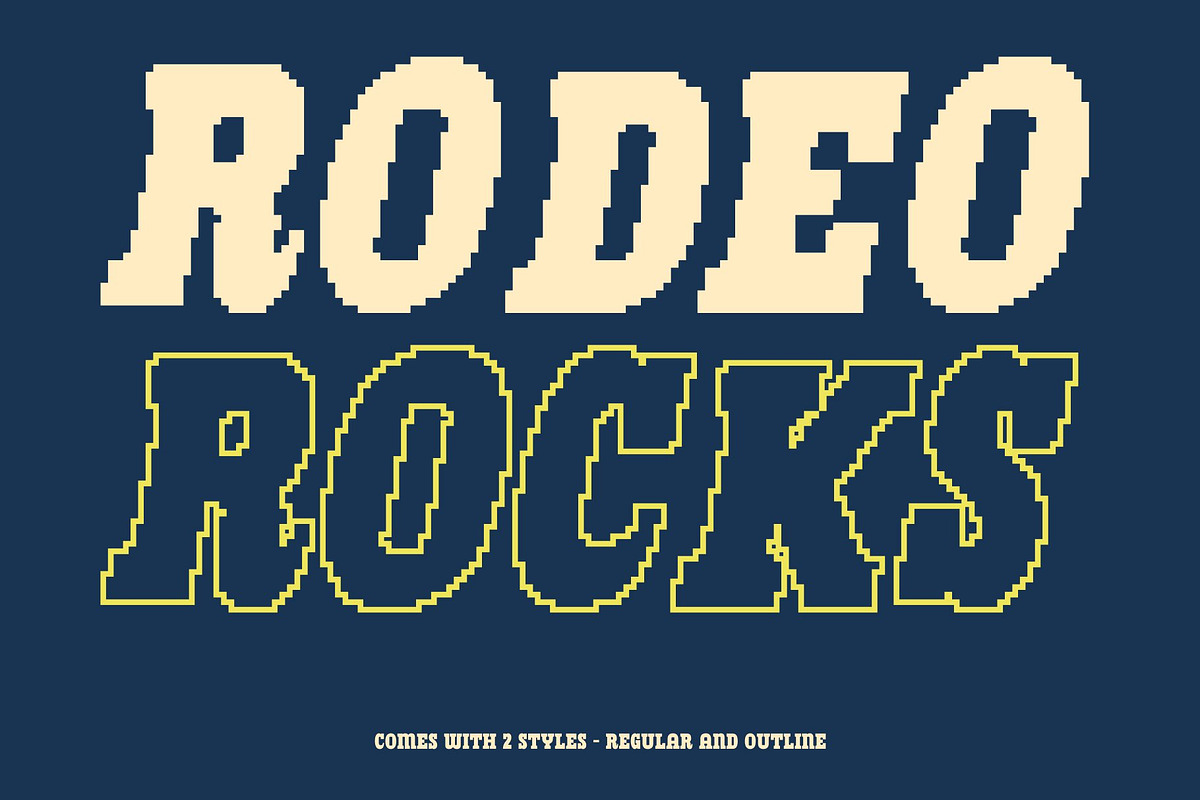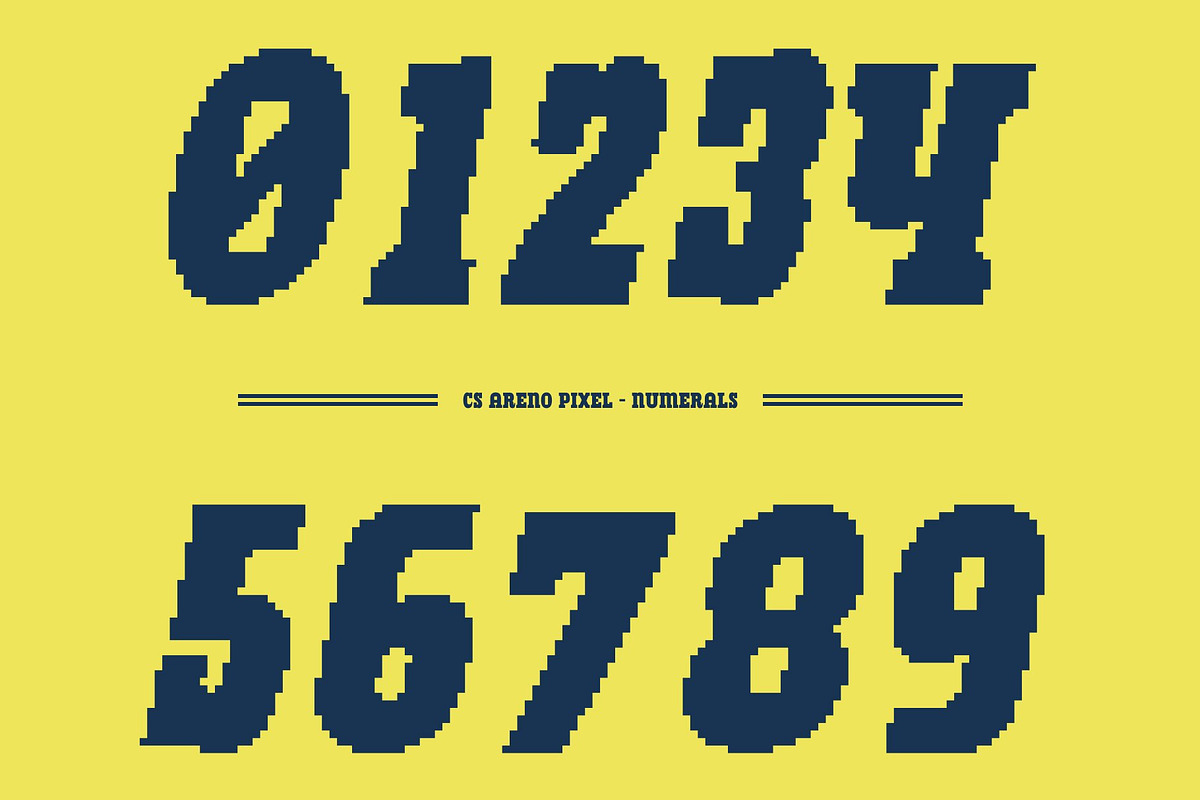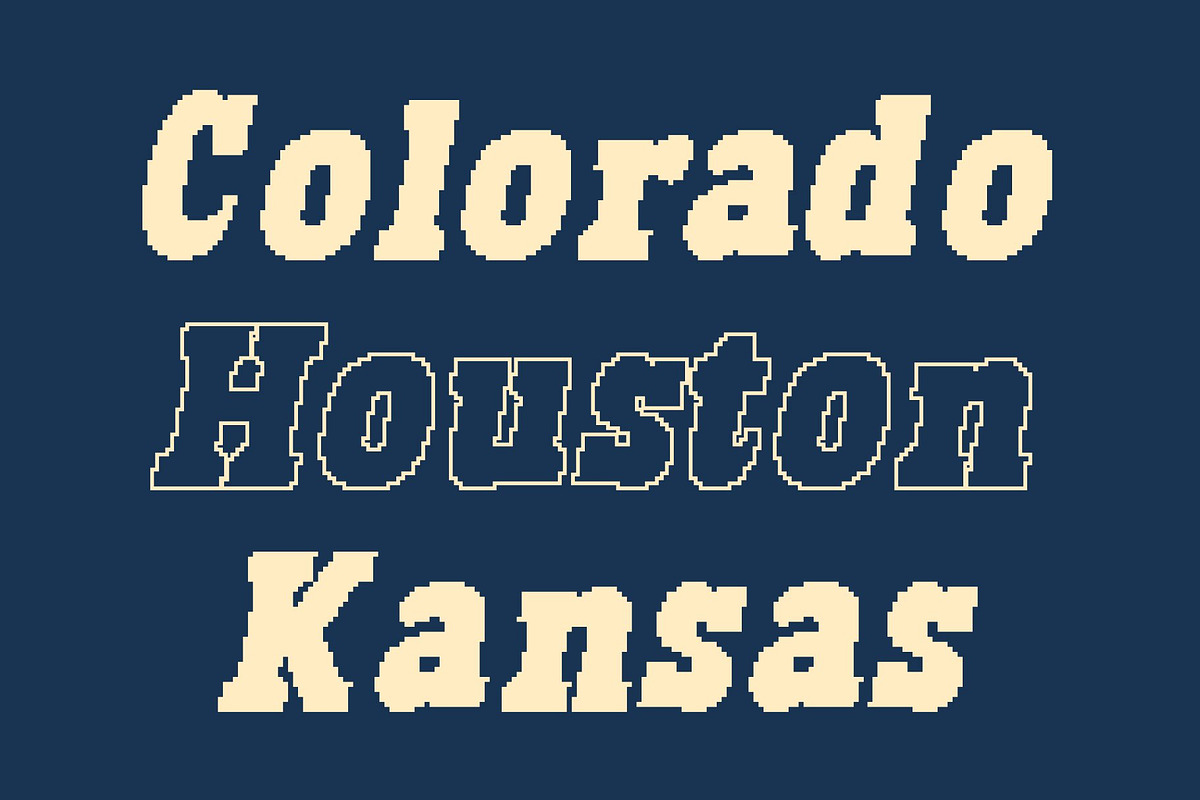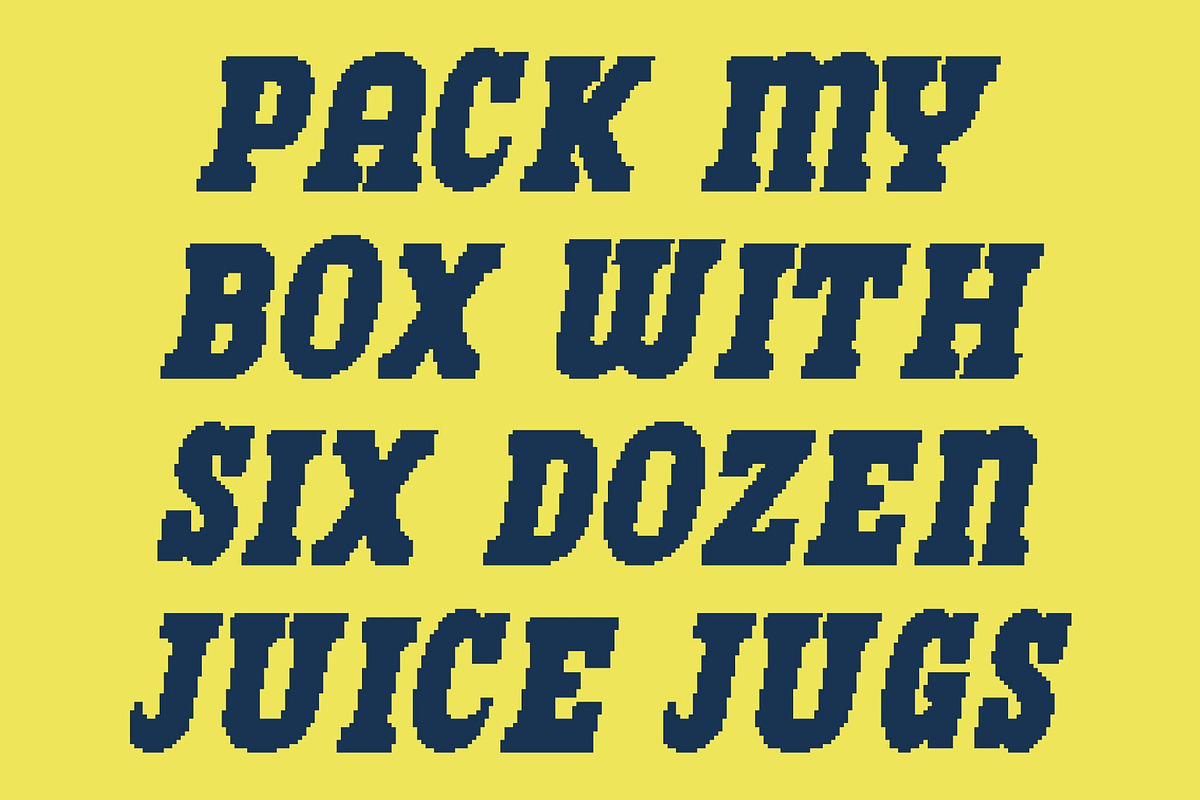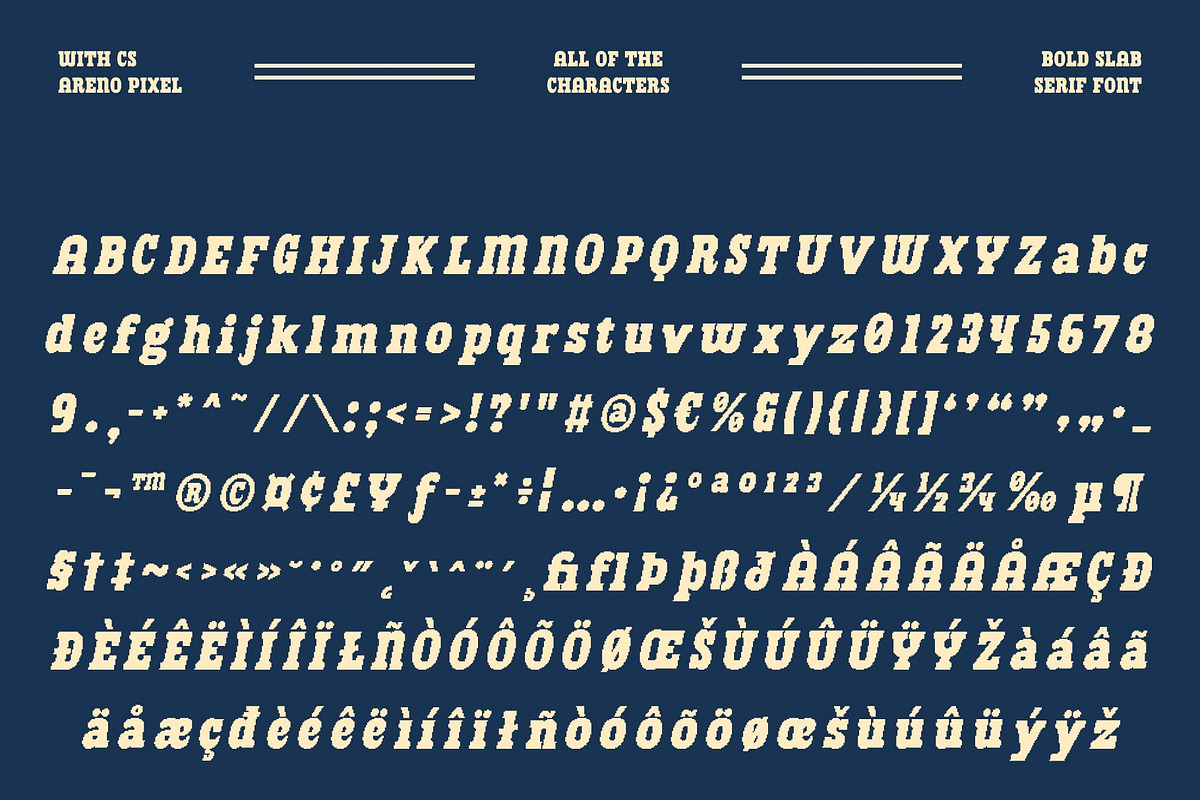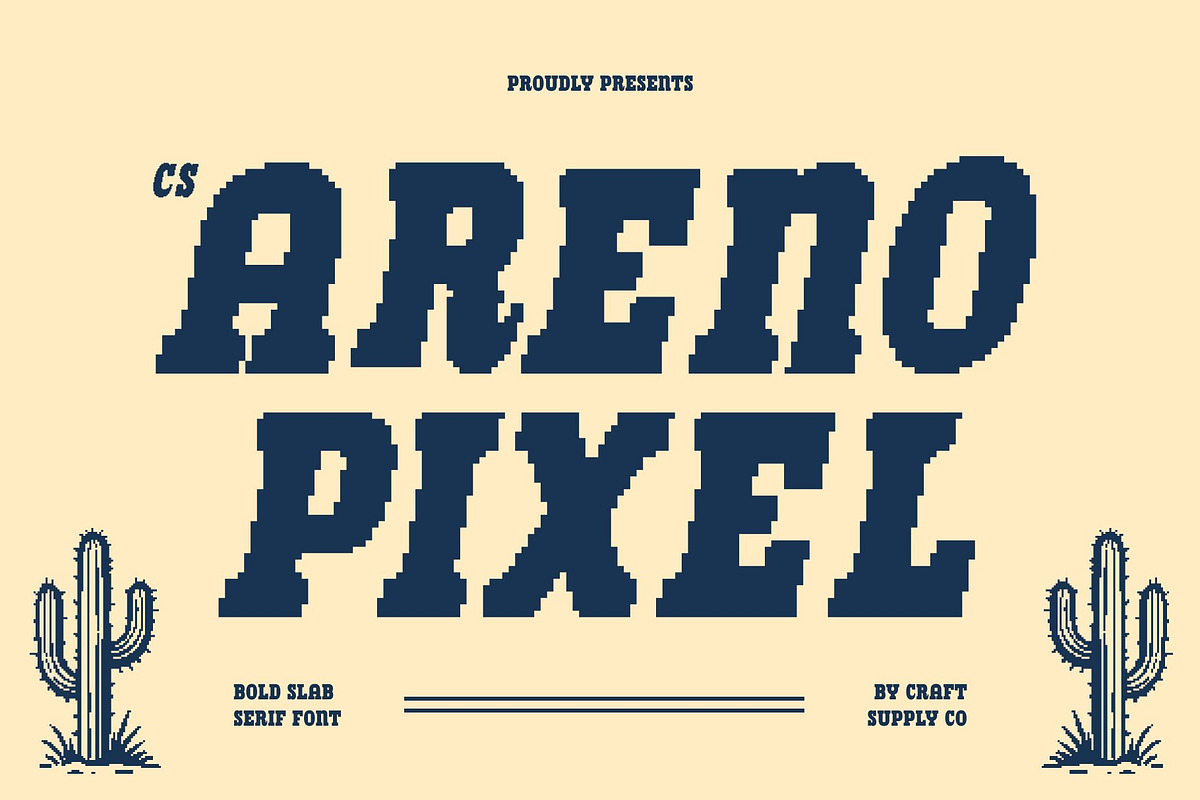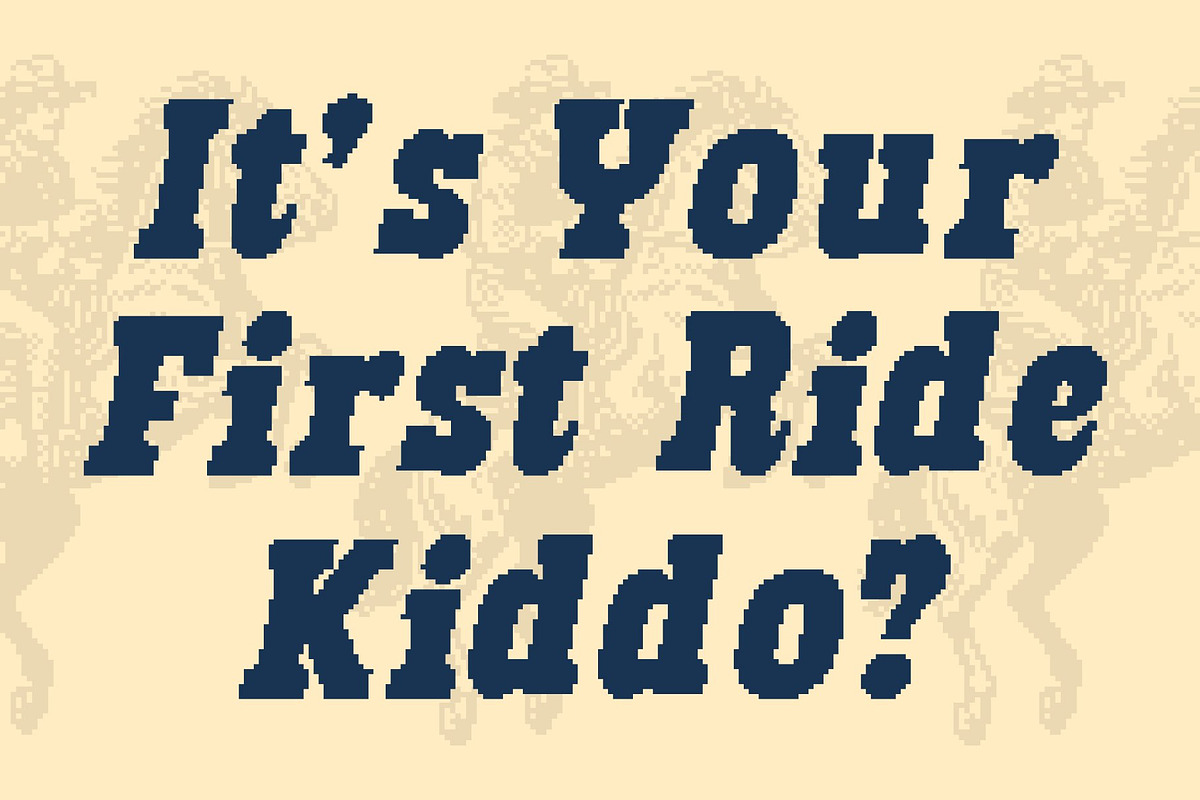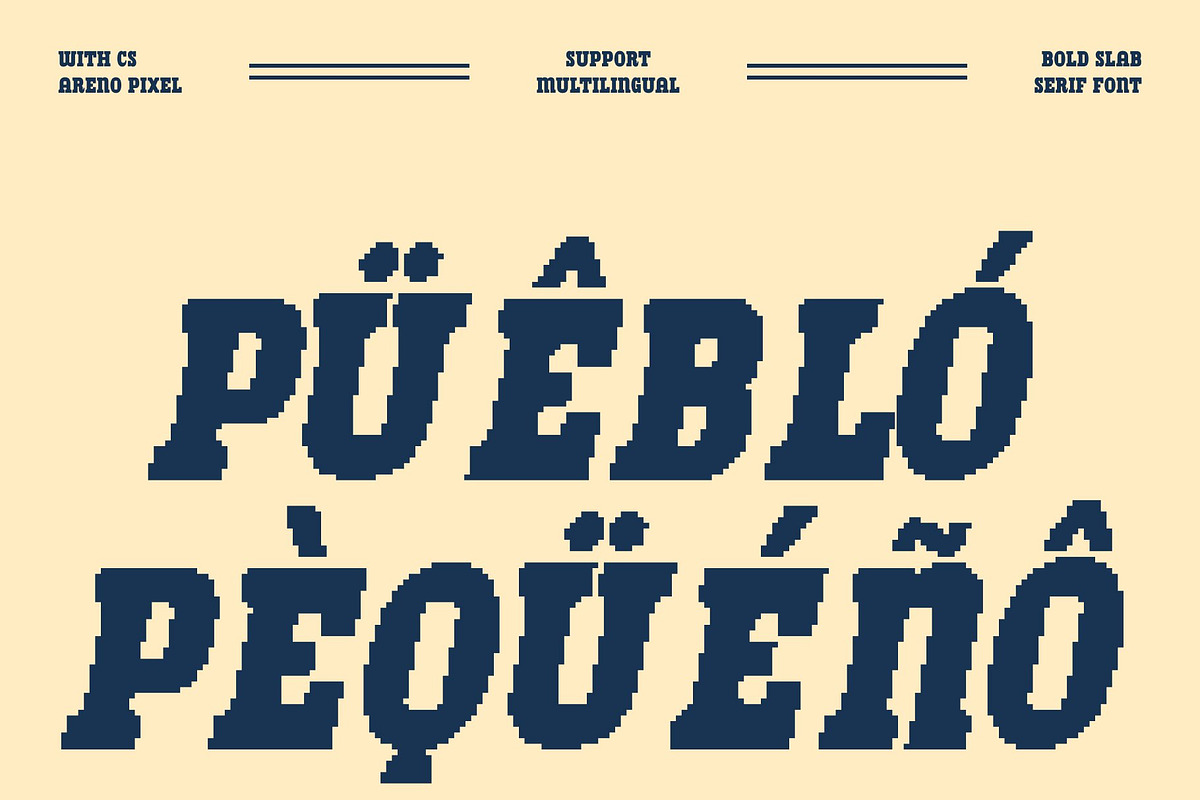
CS Areno Pixel
CS Areno Pixel – Retro Slab Serif with Bold, Assertive Style
Retro Slab Serif with Pixel-Infused Strength This is a slab serif font that fuses classic retro character with bold, modern assertiveness enhanced by a distinctive pixel style. Its chunky slab serifs, solid construction, and pixel-based details evoke vintage arcade and early digital aesthetics, creating a confident visual identity that feels nostalgic yet powerful.
Built for Maximum Readability and High-Impact Display Designed for strong visibility, this font performs exceptionally well in display use. Thick strokes, sturdy proportions, and crisp pixel forms ensure excellent legibility even from a distance. This makes it ideal for headlines, posters, signage, billboards, and advertising where clarity and impact are essential.
Timeless Retro Feel with Modern Digital Attitude While rooted in retro slab serif tradition, this font introduces a modern digital edge through its pixel construction and clean geometry. The result is a font that feels stable, dependable, and contemporary perfect for brands that want to blend heritage with a bold, tech-aware look.
Perfect for Bold Branding, Sports Visuals, and Dynamic Designs This font adapts effortlessly to energetic and statement-driven projects. From sports graphics and bold branding to event posters, packaging, and retro-themed digital designs, this font delivers authority and visual punch. With its strong slab serif foundation and pixel-driven personality, ensures every design feels confident, memorable, and eye-catching.
- CS Areno Pixel Regular
- CS Areno Pixel Outline